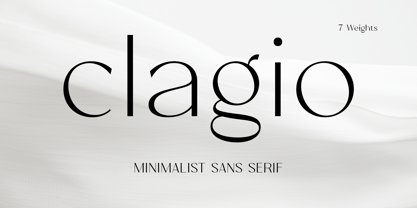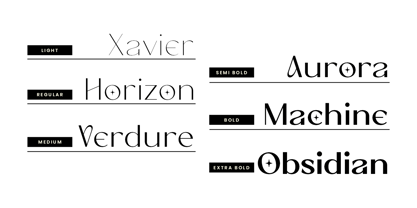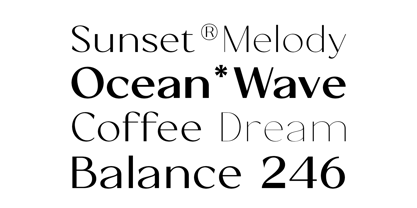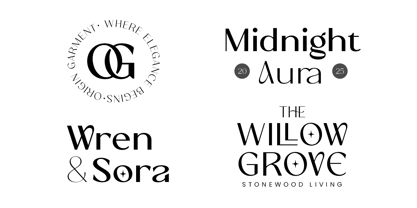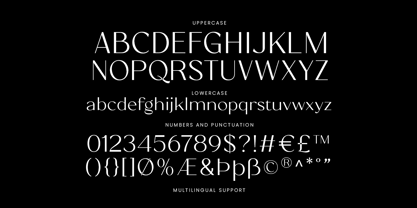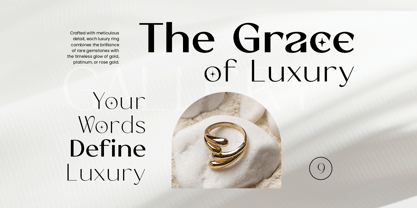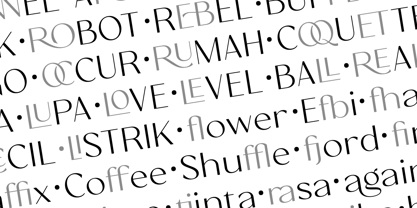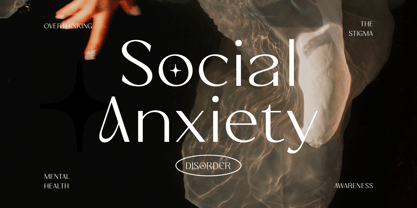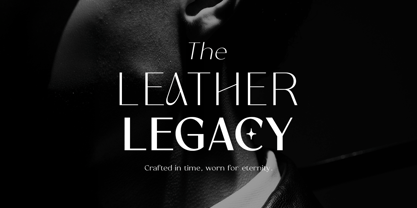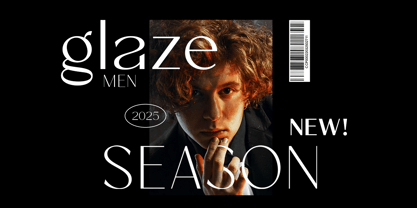
Clagio
by Arterfak Project
The Clagio Font Family was designed by Ahmad Ramzi Fahruddin and published by Arterfak Project. Clagio contains 7 styles and family package options.
Clagio is a contemporary sans-serif family that blends clean geometry with subtle warmth, creating a modern voice that feels both stylish and approachable. With 7 weights from Light to ExtraBold, it offers a full range of expression — from delicate refinement to bold impact. Designed for versatility, Clagio works beautifully in branding, editorial, packaging, magazines, logos, labels, and many more. The lighter cuts bring elegance and calm to long-form text, while the heavier weights stand out with confidence in headlines. Its balanced proportions and smooth rhythm make it easy to pair across different media, giving your projects a cohesive, professional finish. Complete with multilingual support and essential OpenType features, Clagio is a timeless toolkit for designers who want a sans family that adapts effortlessly across print and screen. What you'll get : Uppercase Lowercase Numbers & symbols Stylistic alternates Ligatures Multilingual support.